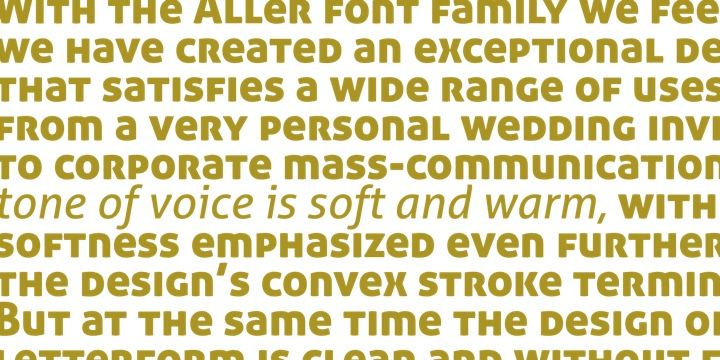
Aller Typo Font
Aller Typo Font is perfect for modern publishing houses, contemporary magazine layouts, digital content platforms, editorial design studios, minimalist blog interfaces, clean corporate communications, professional documentation systems, and sophisticated web typography applications. This versatile typeface excels in applications where typographic clarity and reading comfort are essential for creating accessible and professional brand experiences across diverse media platforms.
What makes Aller Typo Font truly exciting is its masterful balance of typographic functionality and contemporary aesthetics that demonstrates exceptional attention to reading comfort and visual harmony. The font features carefully optimized letterforms with humanist qualities and geometric precision that ensure outstanding legibility across all sizes and media formats. Its professional personality and reader-friendly character create an immediate sense of clarity and accessibility that resonates with audiences seeking high-quality content and information design. The typeface's typographic excellence and universal appeal make it perfect for brands wanting to convey professionalism, clarity, and connection to modern communication standards and editorial best practices.
The Aller Typo Font family includes comprehensive weight range from Thin to Black, complemented by matching italic versions that enhance its editorial versatility. The font offers extensive OpenType features including multiple figure styles, small capitals, contextual alternates, and broad multilingual support for international publishing. Additional stylistic sets and ligatures provide designers with flexible tools for creating sophisticated typography systems and comprehensive editorial design solutions.